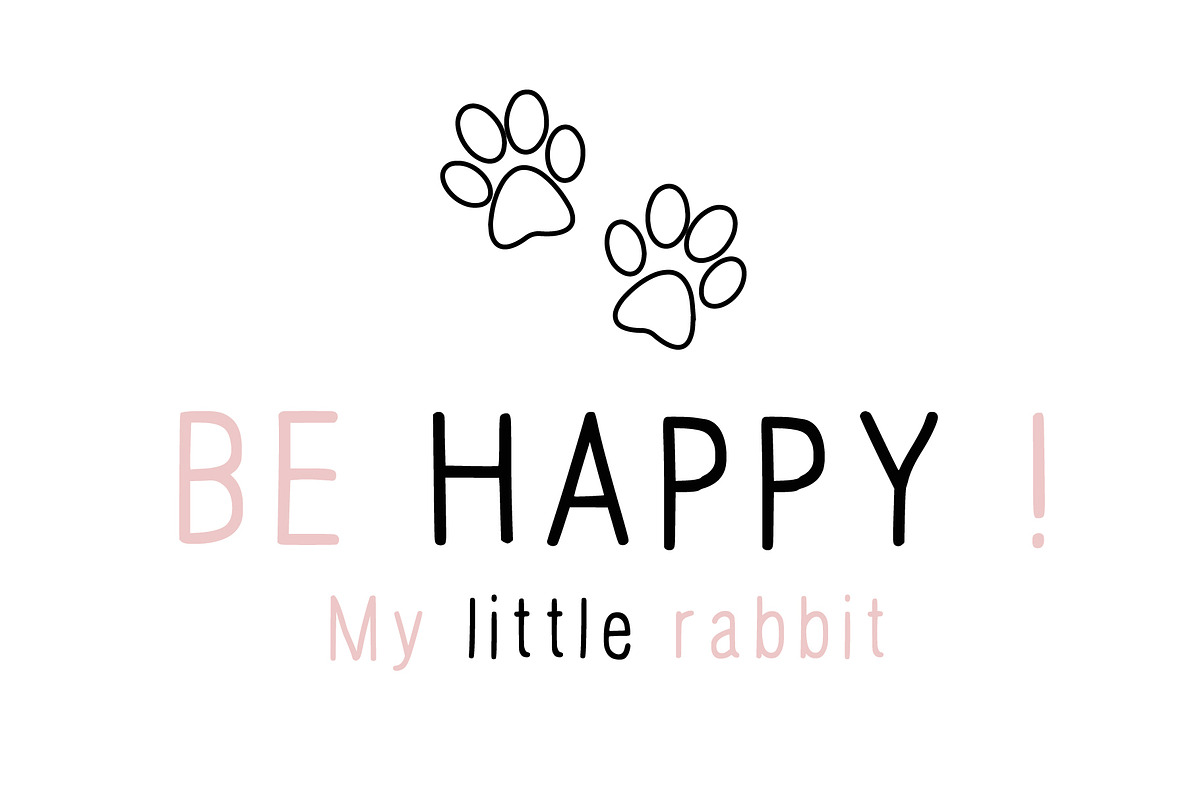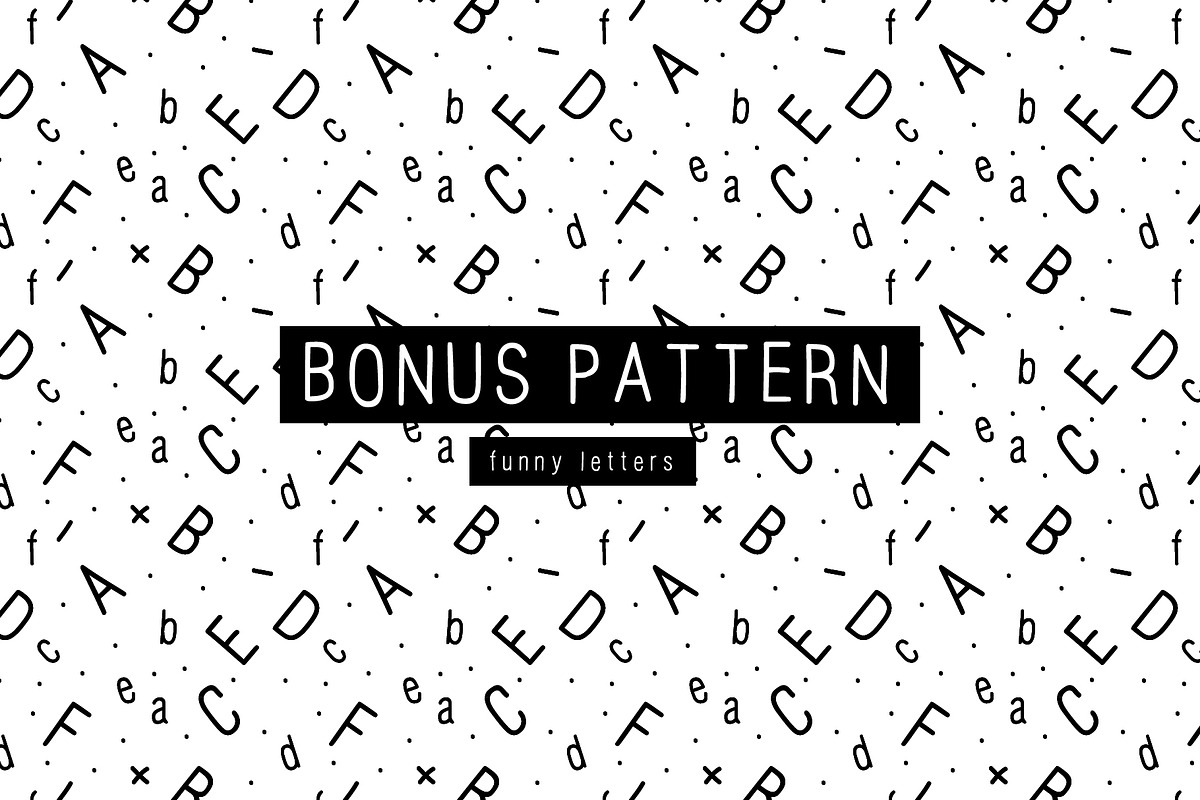
Hand Draw sans serif
Friends, I always lacked this font and I had to draw it manually each time, but now I won’t do it, because I have made this font. This is an incredible feeling when you can use your own work.
So I present to you the font Hand Dro san Serif. This is a font made by hand with a single-brush and looks simply striking. You have a great opportunity to use it in your works.